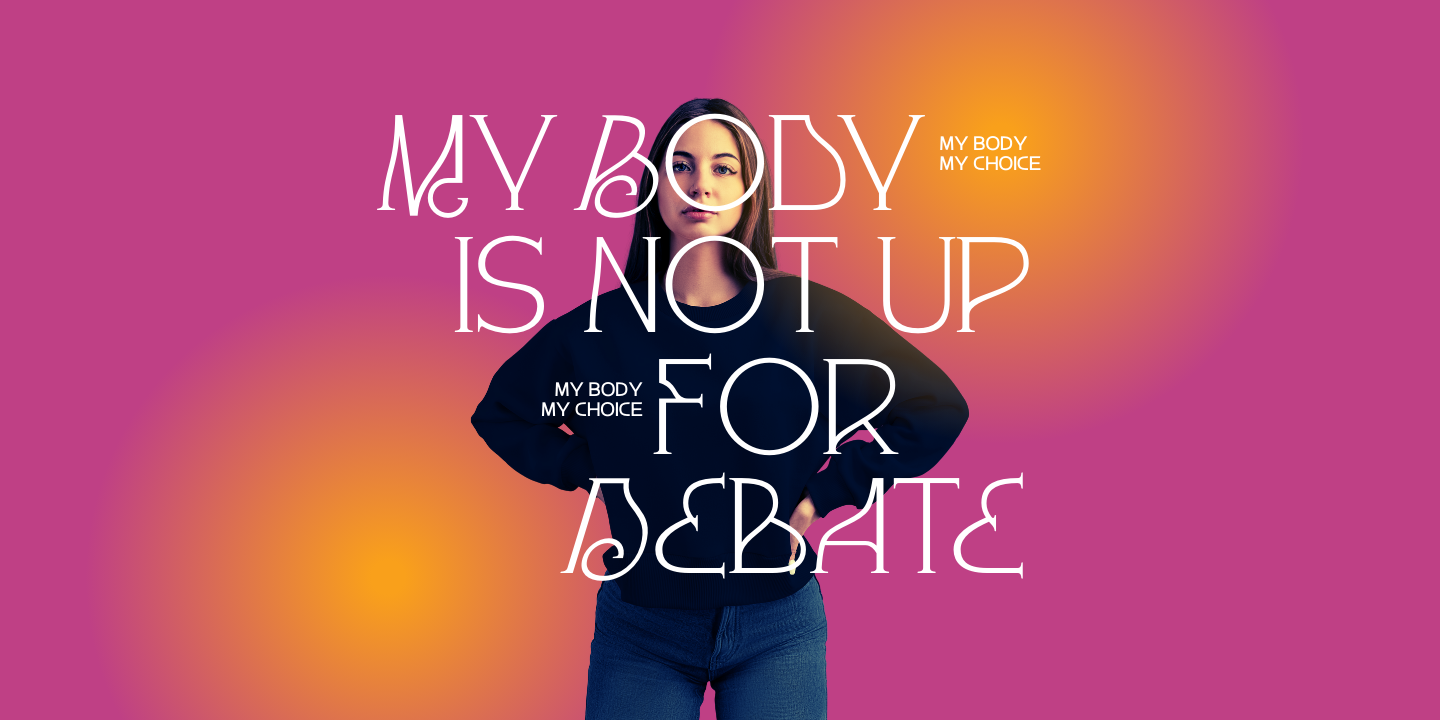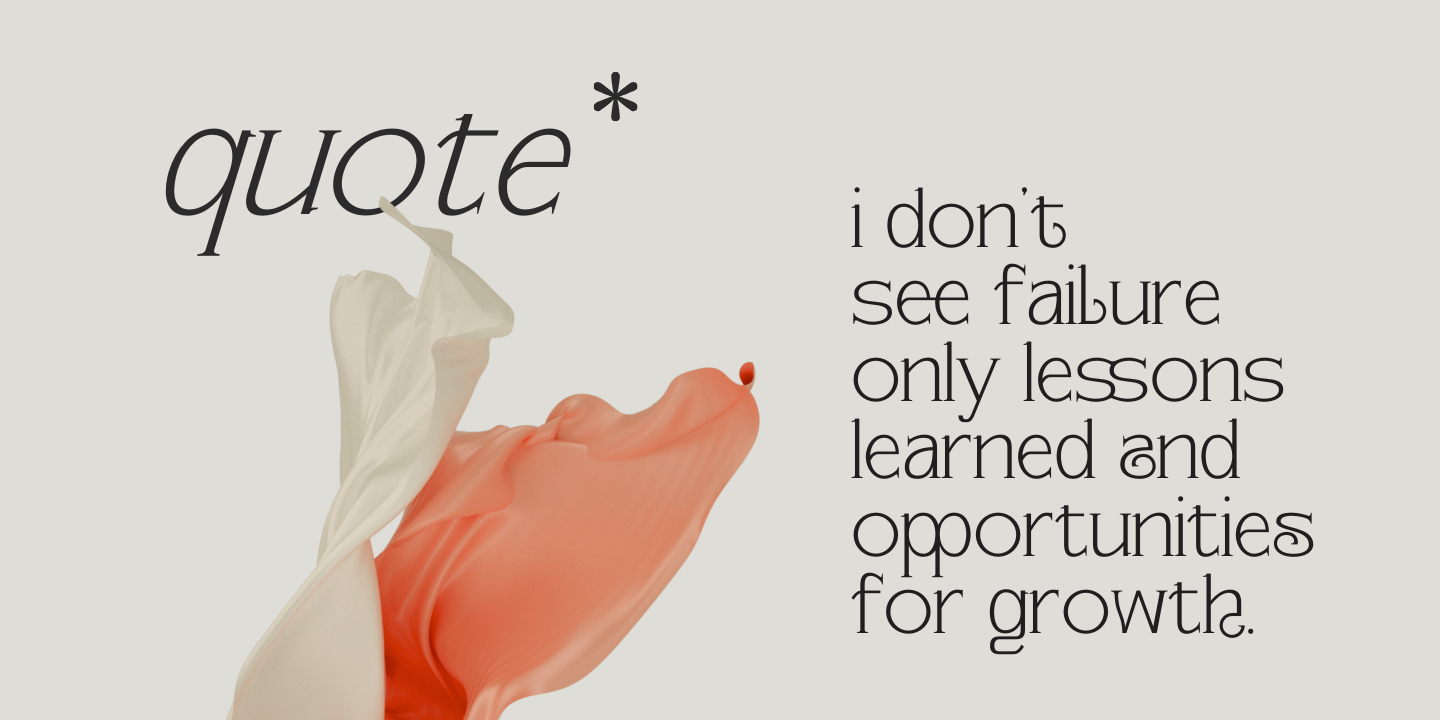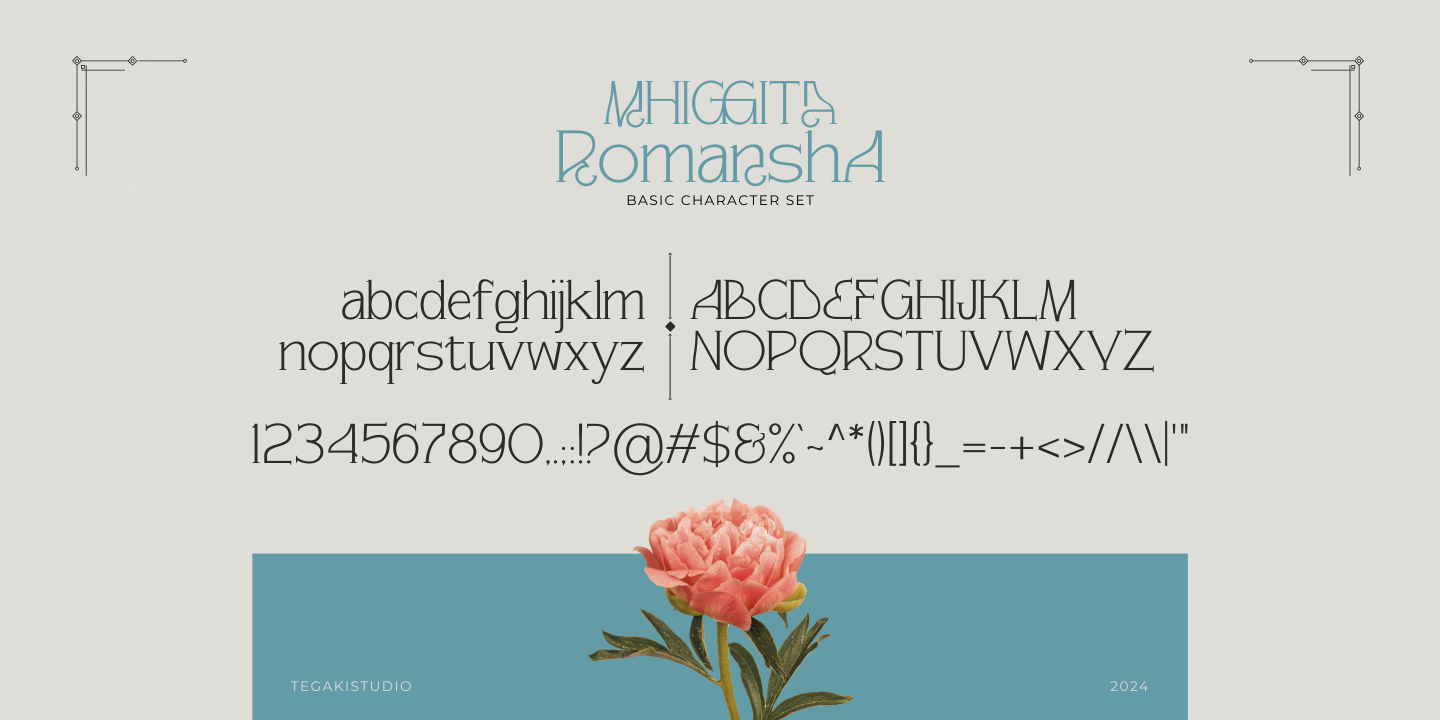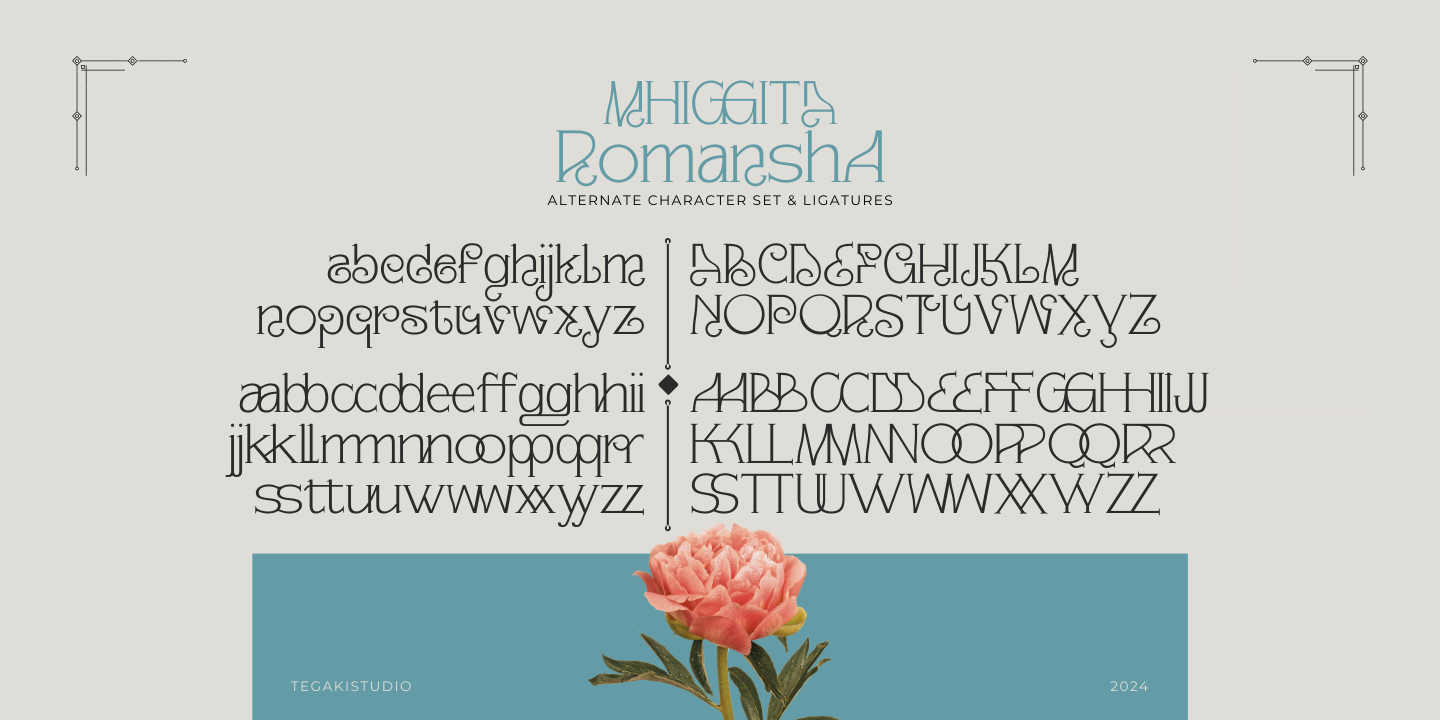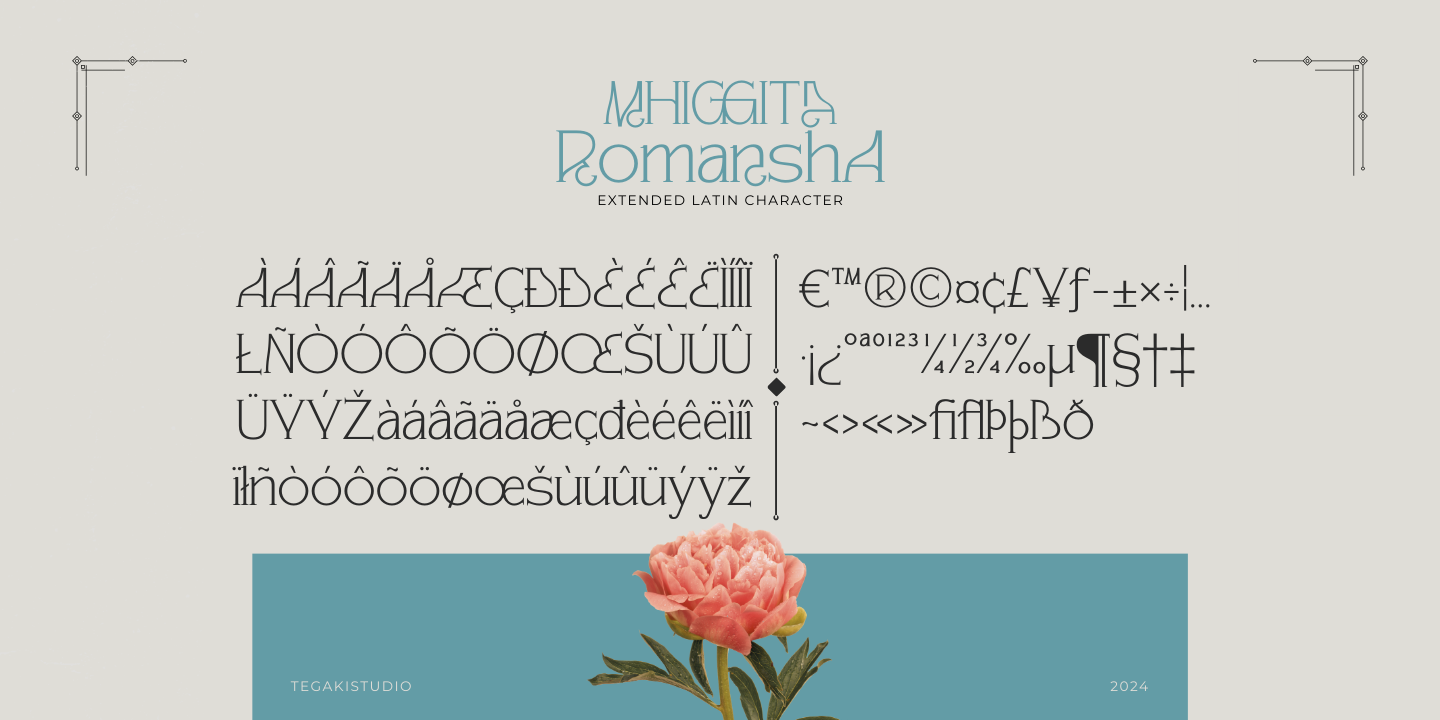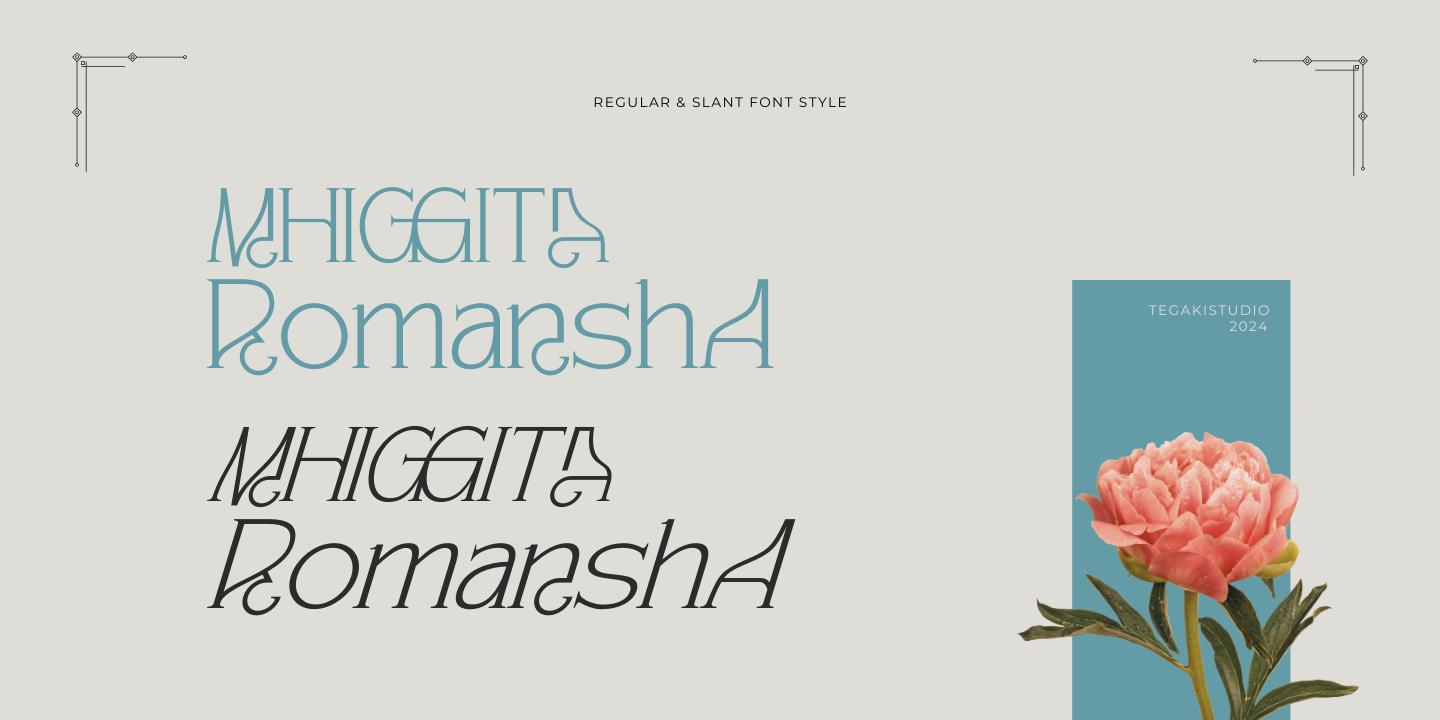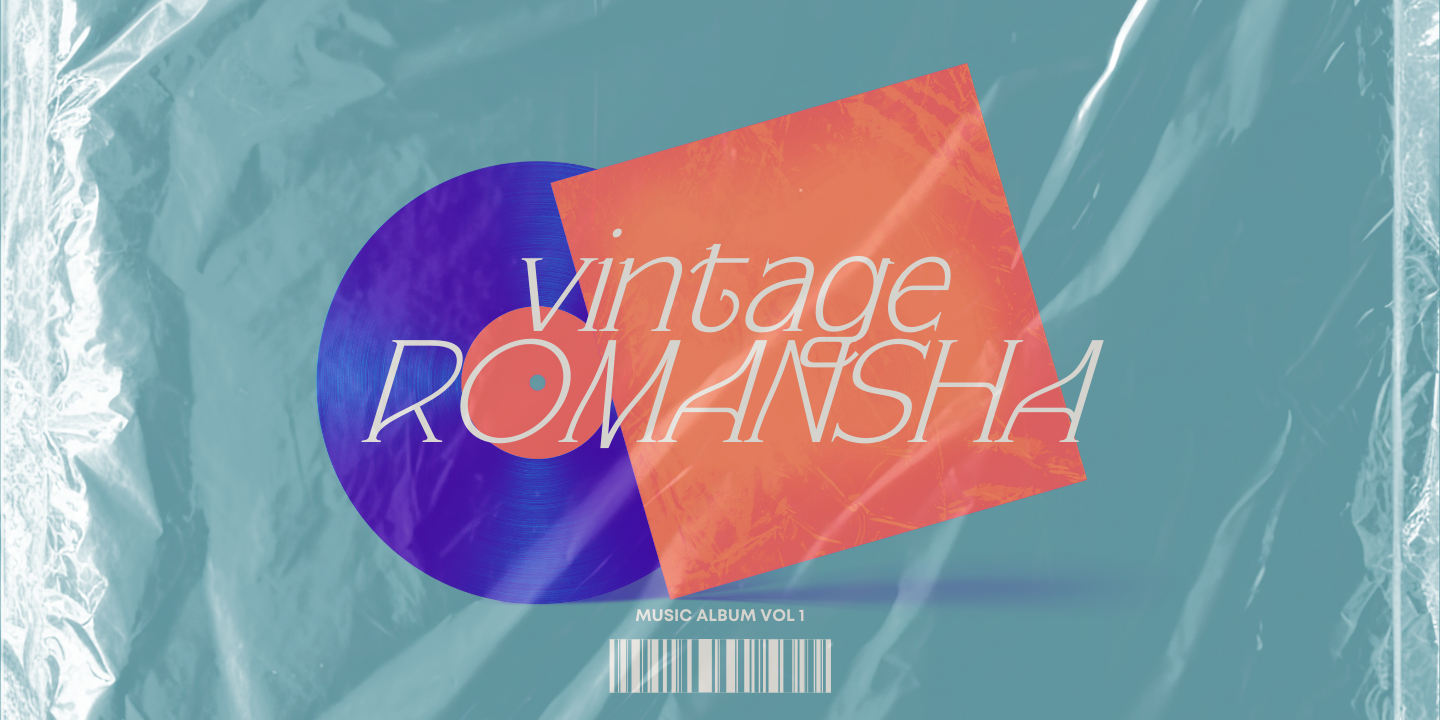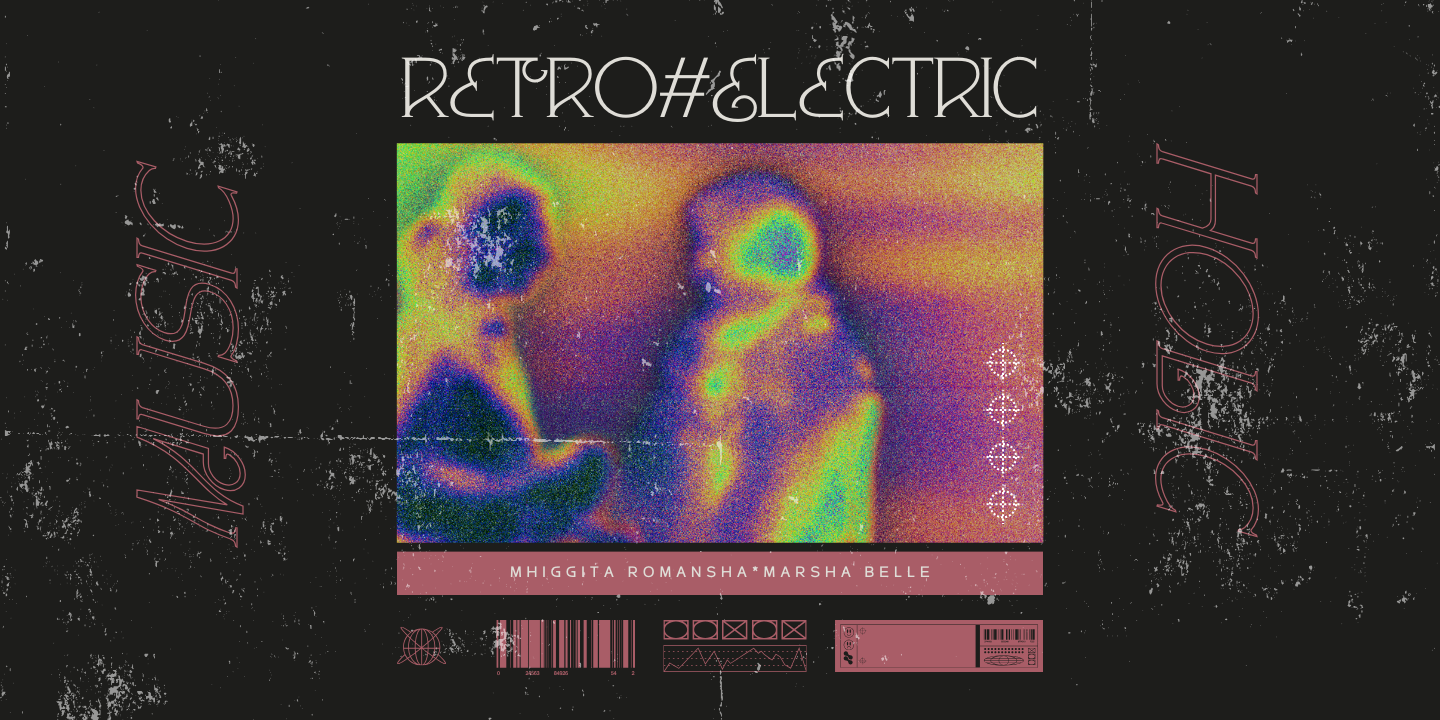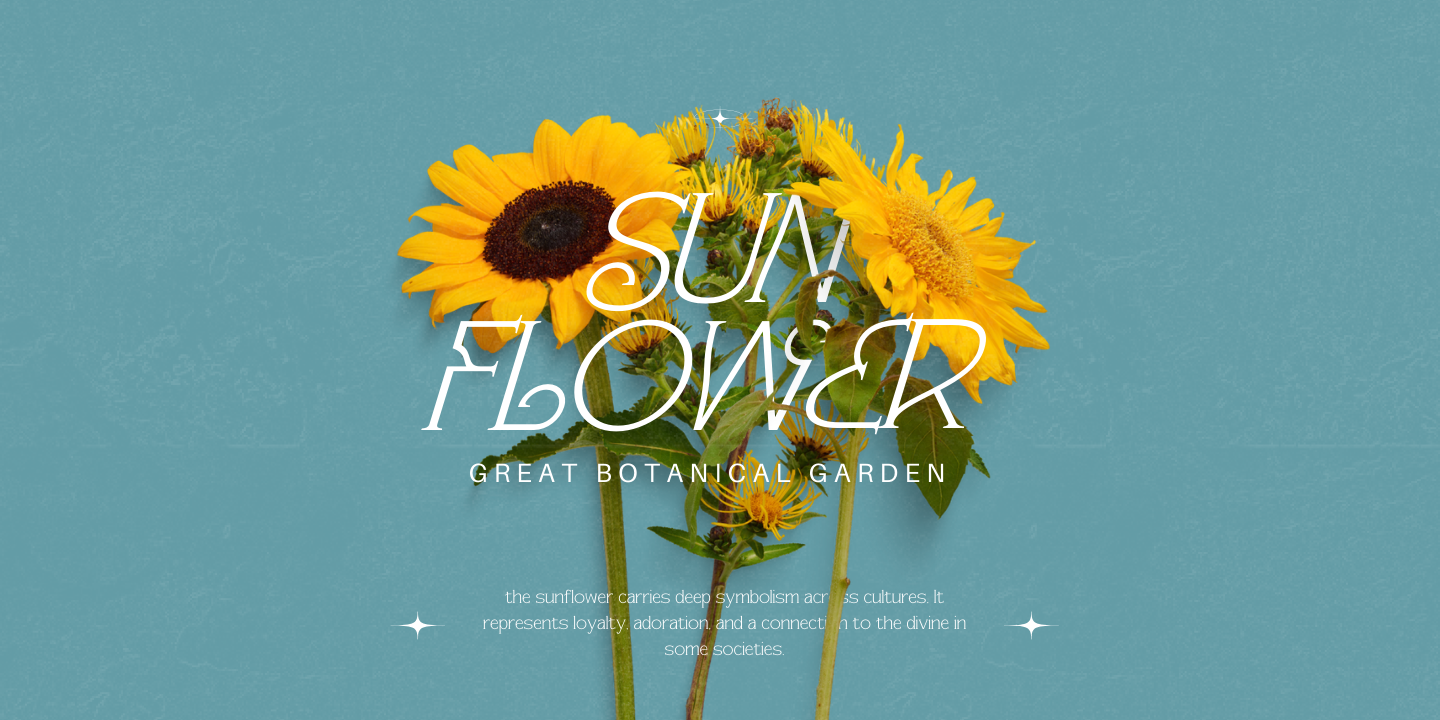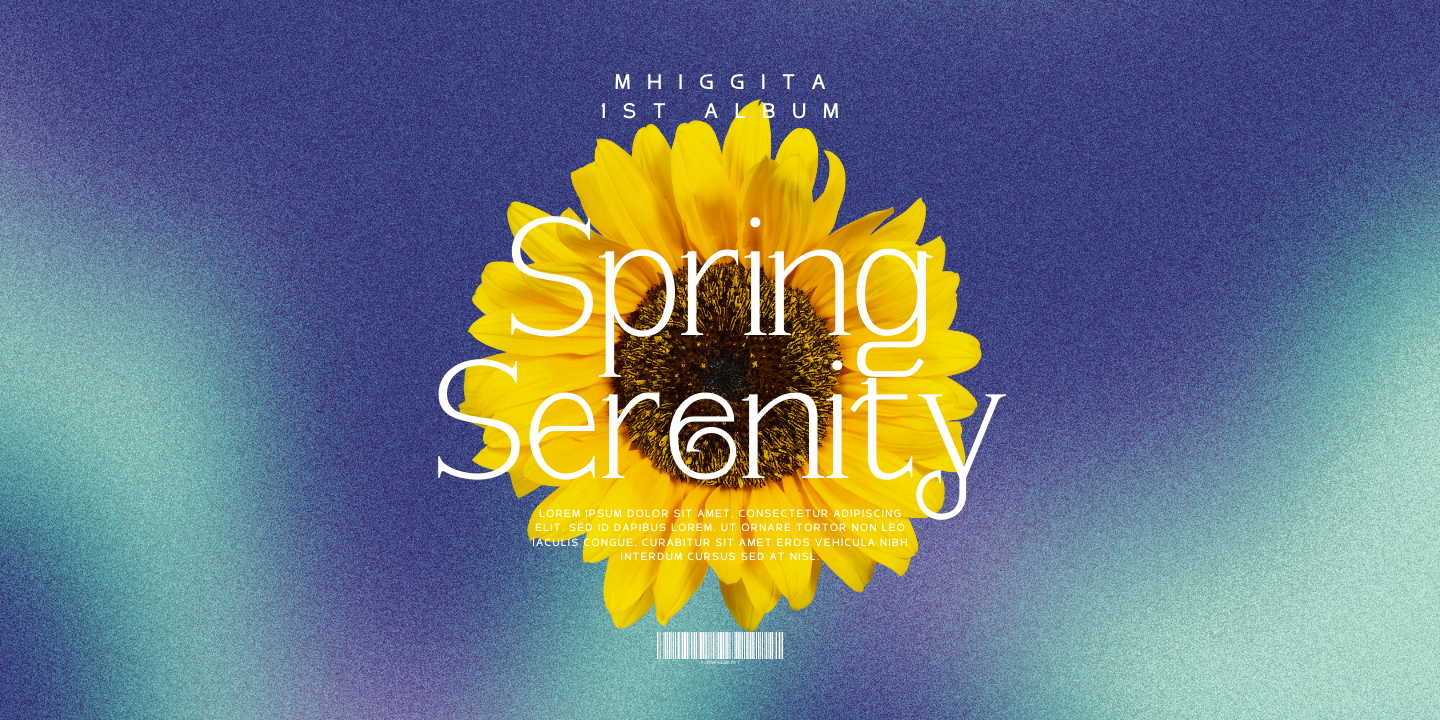
Mhiggita Romansha (2 fonts)
Elegance Serif comes in two distinct styles: Regular and Slant. The Regular style offers a polished, professional look, while the Slant style adds a dynamic, contemporary edge. Together, these styles provide flexibility and creative freedom, making Elegance Serif a versatile choice for a wide range of design projects, from luxury fashion magazines to high-end product packaging. Elevate your design work with Elegance Serif and leave a lasting impression with every project.